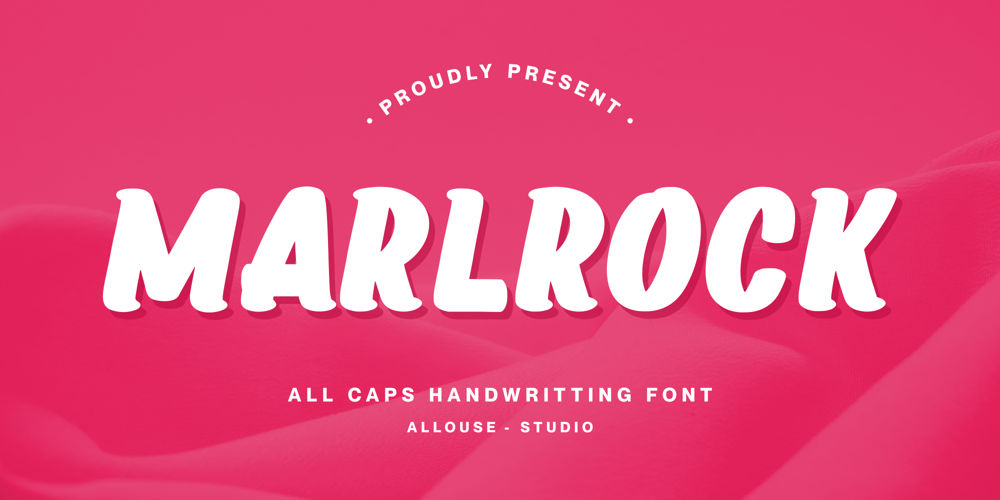
Marlrock Font Family was designed by Fachrizal Yusuf and published by Allouse Studio. Marlrock contains 1 styles and family package options. Proudly Presenting, Marlrock A All Caps Handwritting Font.Marlrock is perfect for any titles, logo, product packaging, branding project, megazine, social media, wedding, or just used to express words above the background.Marlrock also come with Multi-Lingual Support.Enjoy the font, feel free to comment or feedback, send me PM or email. Thank You!